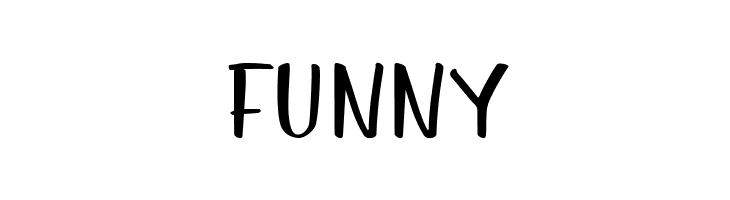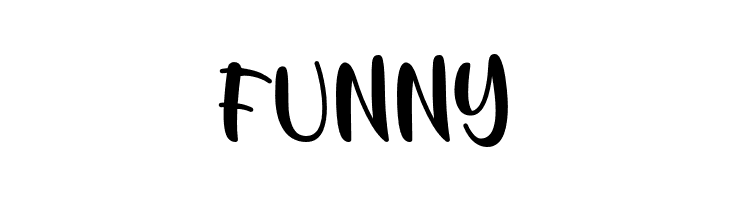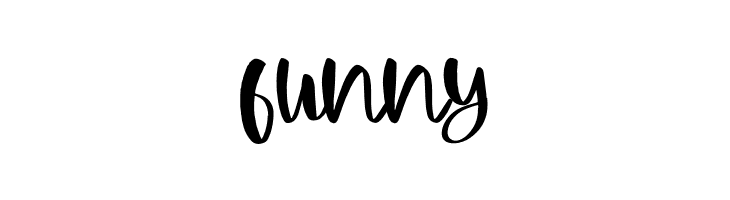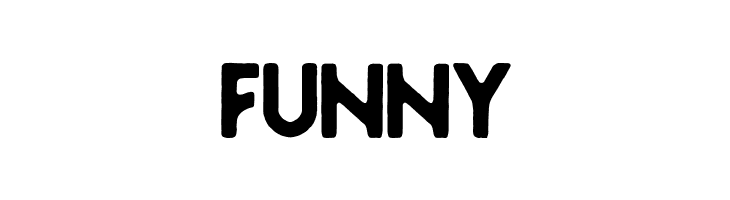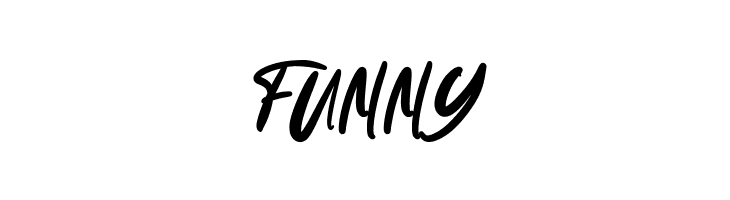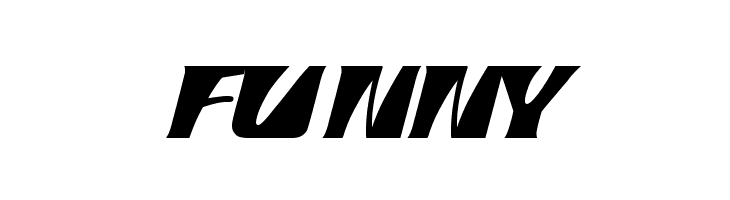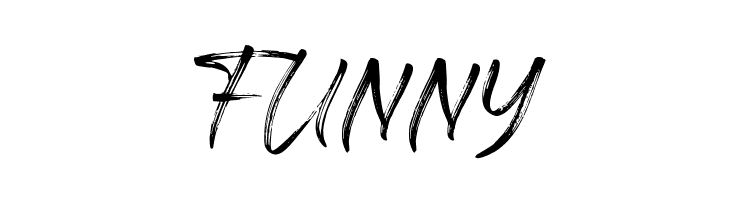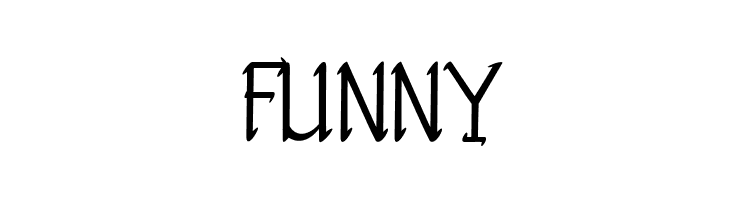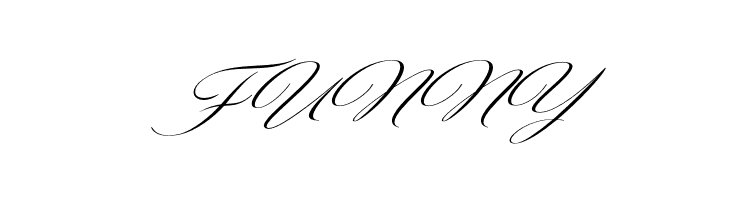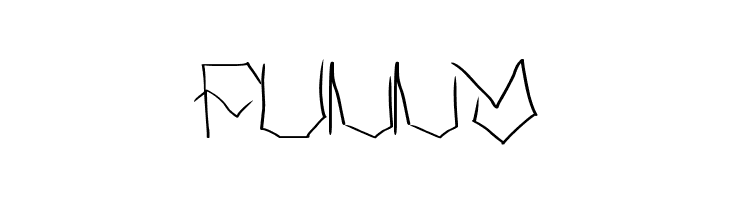
A dynamic, handwritten-style font with tall, narrow, and angular letterforms.
A bold, playful handwritten font with thick strokes and rounded edges.
A bold, playful font with rounded, smooth letterforms and wide spacing.
A playful handwritten font with irregular strokes and a casual style.
A playful, whimsical font combining script and sans-serif elements.
A playful, casual handwritten font with smooth, rounded edges.
A bold, playful handwritten font with dynamic strokes.
A dynamic, expressive handwritten font with fluid strokes and varying widths.
A dynamic, brush-style script font with energetic strokes.
An artistic, calligraphic font with dynamic serifs and elegant flourishes.
An elegant and flowing script font with a calligraphic style.
A bold, striped font with a modern and artistic flair.
A bold, handwritten font with a lively and playful style.
A bold, energetic script font with a hand-drawn, dynamic style.
A bold, textured font with a hand-drawn, distressed appearance.
An elegant, high-contrast script font with flowing, decorative curves.
An elegant script font with fluid, cursive strokes and decorative flourishes.
A bold, graffiti-inspired font with sharp, angular lines and dynamic energy.
A bold, brush-style font with dynamic, slanted strokes.
A bold, striped font with a dynamic and modern style.
A playful and casual handwritten font with smooth curves and a friendly feel.
A whimsical and artistic font with fluid, hand-drawn letterforms.
A bold, geometric font with strong, uniform shapes and minimal contrast.
A bold, dynamic font with jagged edges and a sense of movement.
A dynamic handwritten font with fluid strokes and a casual aesthetic.
A graffiti-inspired font with angular, geometric shapes and a bold, urban style.
A playful, hand-drawn font with bold, rounded characters.
A bold, italicized font with sharp angles and a dynamic, modern style.
A bold, angular, and futuristic font with a geometric design.
A bold, geometric font with sharp angles and a modern aesthetic.
Bold, rounded, and playful font with a retro feel.
A bold, rounded font with a playful and informal style.
A decorative font with whimsical, hand-drawn illustrations in each character.
A fluid and elegant script font with a natural handwriting style.
A graceful script font with fluid, connected strokes and elegant curves.